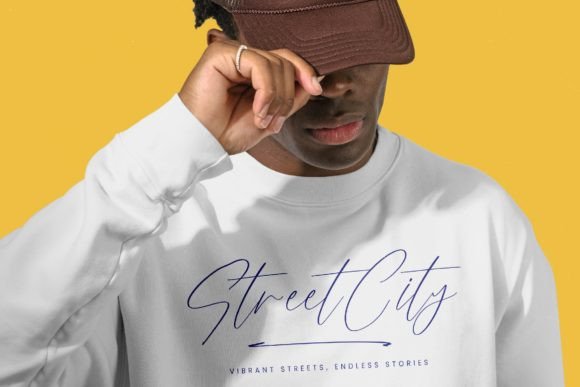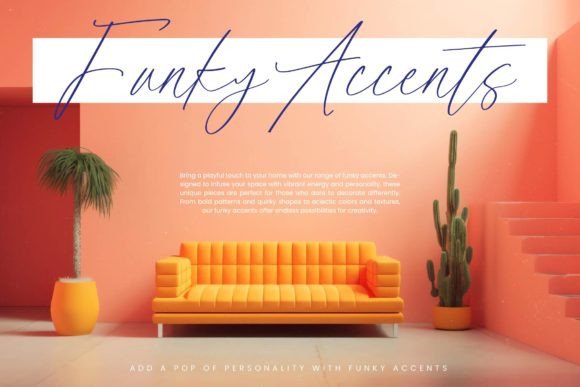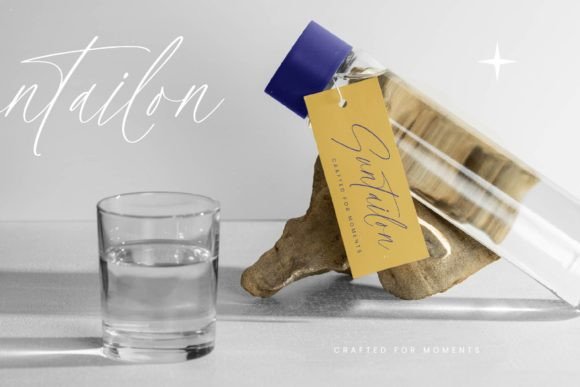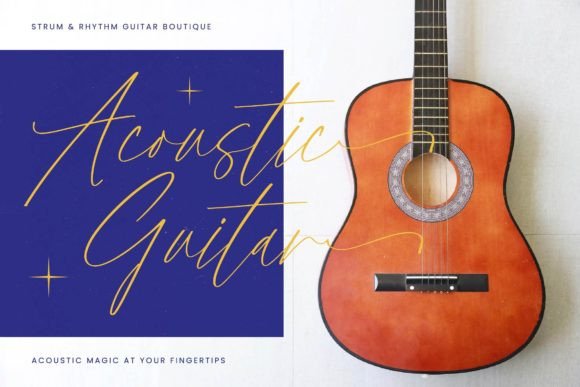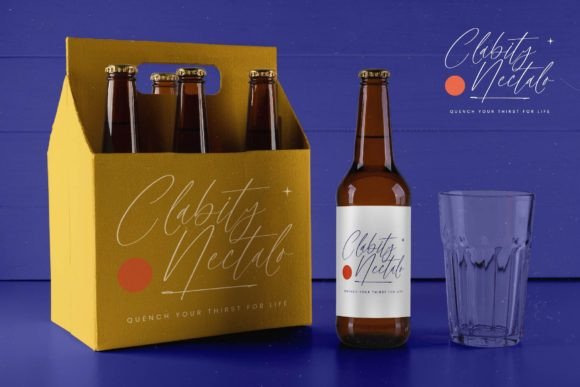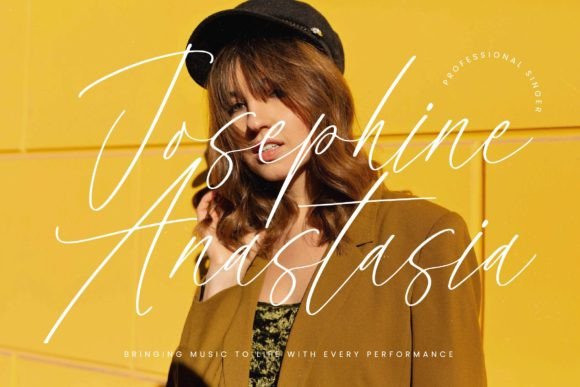
Cocktails Tastefulic Font: Elevate Your Designs with Luxury and Sophistication
In the world of design, typography plays a crucial role in conveying the tone and aesthetic of a project. For designers and crafters seeking to add a touch of luxury and sophistication to their work, the Cocktails Tastefulic Font is an exceptional choice. This modern stylish script font, crafted by Letterena, is perfect for a wide range of projects, from logos and branding to packaging, posters, and more.
What is Cocktails Tastefulic Font?
Cocktails Tastefulic Font is a luxury script font designed to bring an air of elegance and refinement to any project. Its flowing lines, intricate details, and stylish curves make it an ideal choice for designers looking to create visually stunning and high-end designs. Whether you’re working on a logo, product packaging, or marketing materials, this font is sure to impress.
Key Features of Cocktails Tastefulic Font
• Modern Stylish Script: Cocktails Tastefulic Font boasts a contemporary and stylish script style, perfect for designers seeking to create fresh and trendy designs.
• Luxury and Sophistication: With its elegant lines and refined details, this font exudes luxury and sophistication, making it ideal for high-end projects.
• Versatile: From logos and branding to packaging, posters, and more, Cocktails Tastefulic Font can be used for a wide range of projects.
• Easy to Read: Despite its ornate details, this font remains easy to read, ensuring that your message is conveyed clearly and effectively.
Use Cases for Cocktails Tastefulic Font
The versatility of Cocktails Tastefulic Font makes it suitable for various projects, including:
• Logos and Branding: Create a lasting impression with a luxurious logo that reflects your brand’s values and aesthetic.
• Product Packaging: Elevate your product’s packaging with a sophisticated font that conveys high-end quality.
• Posters and Marketing Materials: Make a statement with eye-catching posters and marketing materials that showcase your brand’s style.
• Invitations and Greeting Cards: Add a touch of elegance to your invitations, greeting cards, and other special event materials.
• T-Shirts and Apparel: Create stylish and luxurious apparel with Cocktails Tastefulic Font.
Why Choose Cocktails Tastefulic Font?
With so many fonts available, why choose Cocktails Tastefulic Font? Here are a few compelling reasons:
• Unique and Exclusive: This font offers a distinctive and exclusive style that will set your designs apart from the rest.
• High-Quality: Crafted with attention to detail, Cocktails Tastefulic Font is a high-quality font that will enhance your designs.
• Support for Various Languages: This font supports multiple languages, making it a great choice for global brands and designers.
Tips for Using Cocktails Tastefulic Font
To get the most out of Cocktails Tastefulic Font, consider the following tips:
• Pair with Neutral Colors: Balance the luxury of the font with neutral colors to avoid overwhelming the design.
• Experiment with Font Sizes: Play with different font sizes to create visual hierarchy and add depth to your design.
• Add Decorative Elements: Enhance your design with decorative elements, such as illustrations or graphics, to complement the font.
Cocktails Tastefulic Font is a luxurious script font that can elevate your designs to new heights. With its modern stylish script, versatility, and high-end aesthetic, this font is perfect for designers and crafters seeking to create sophisticated and visually stunning projects. Whether you’re working on a logo, product packaging, or marketing materials, Cocktails Tastefulic Font is an excellent choice.